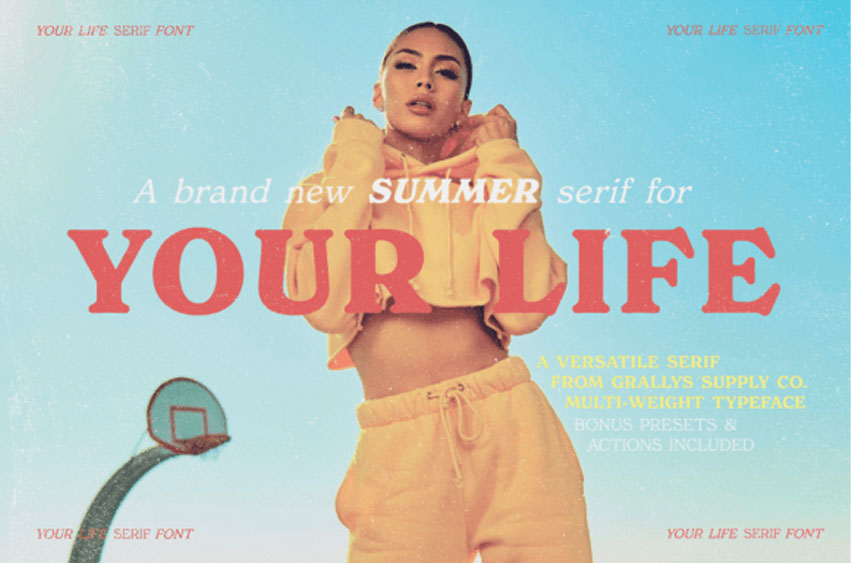
Your Life Font
Your Life Font is an elegant retro style serif font family with a summer twist. This collection will instantly add style to all of your design projects and as a bonus, you will receive 3 retro summer Photoshop actions.
This stylish font family is timeless and can not be missed in your font collection. It is the perfect summer branding font!